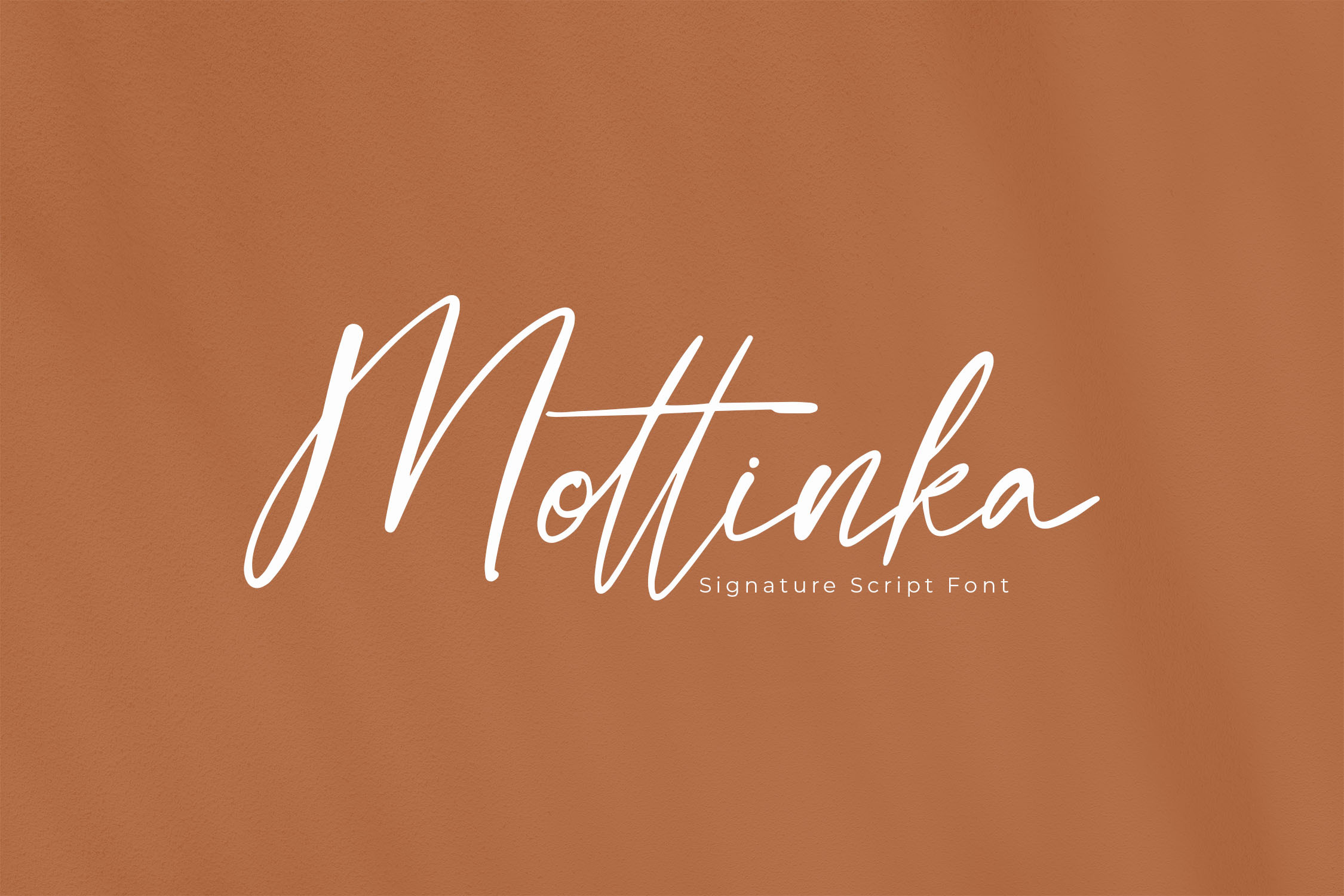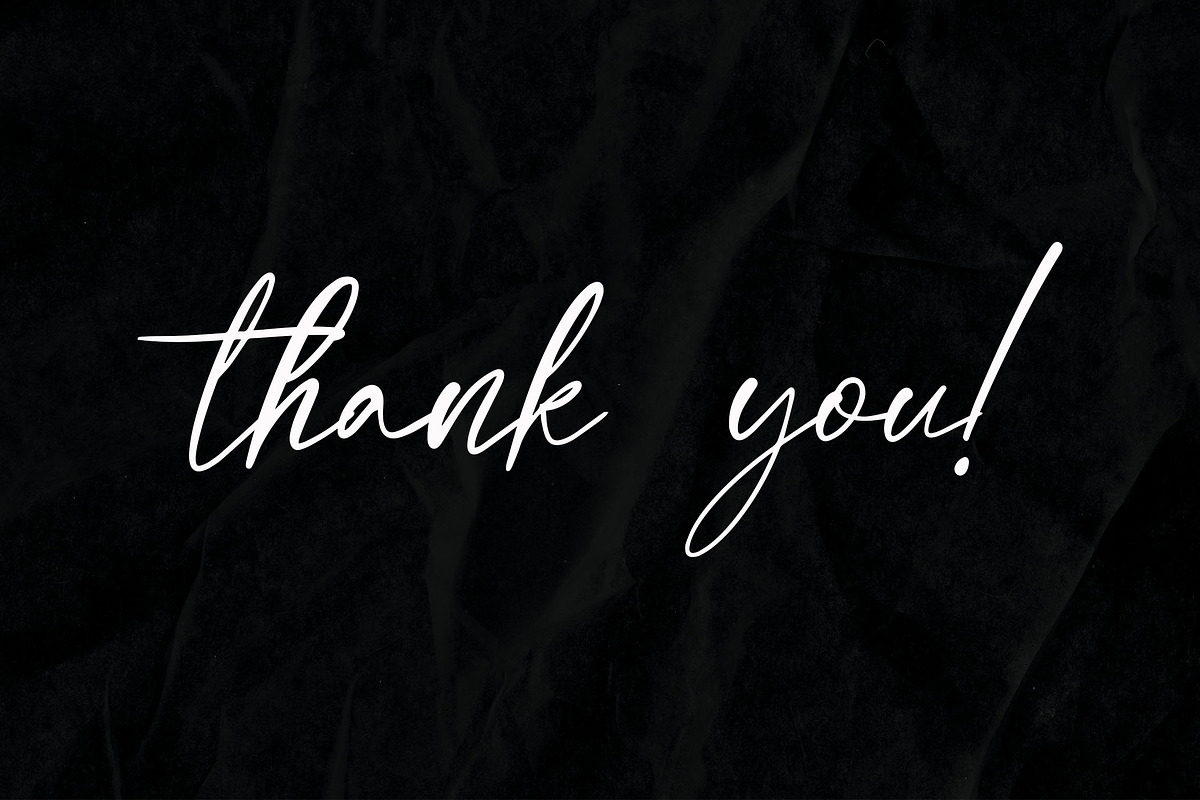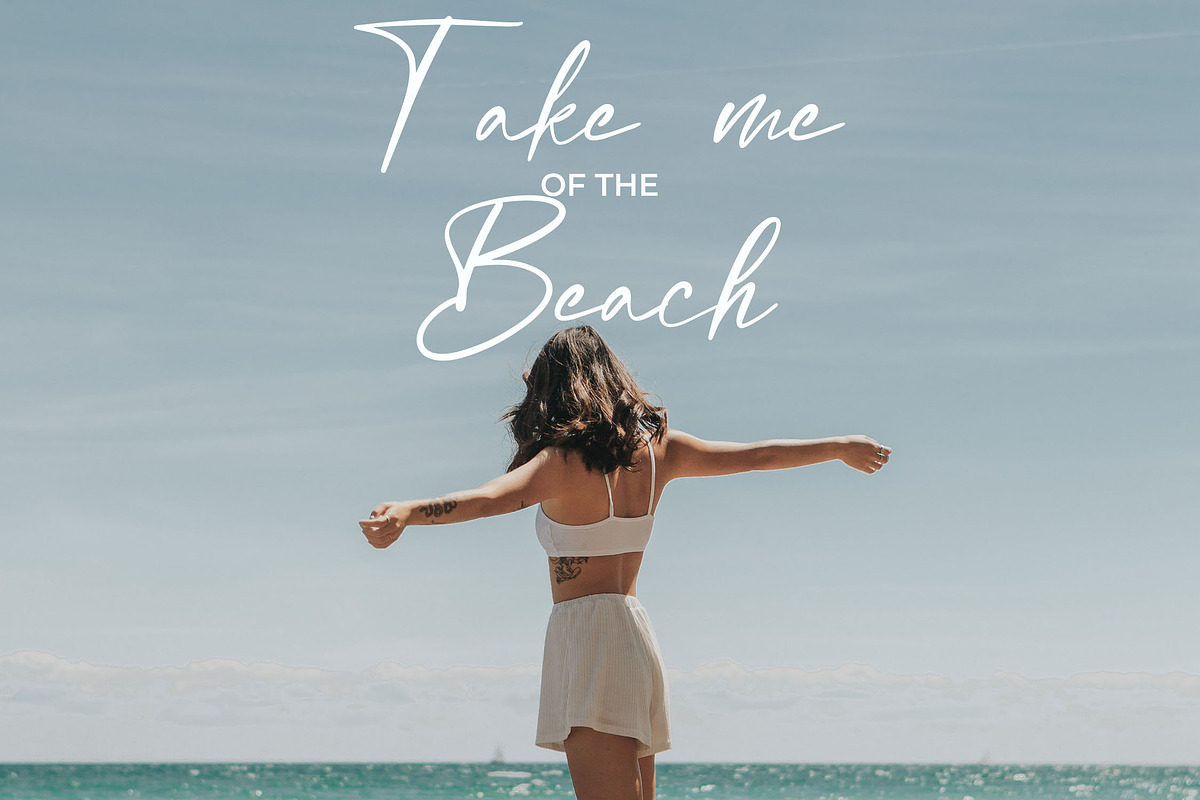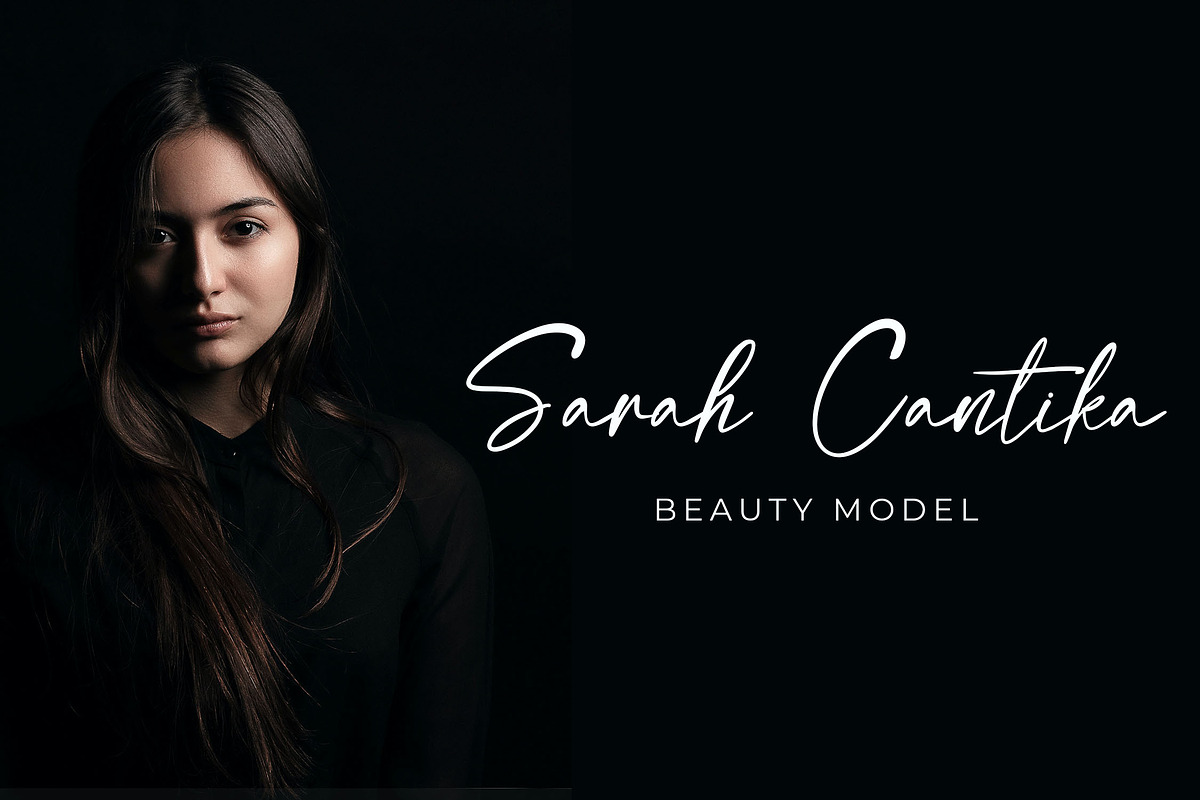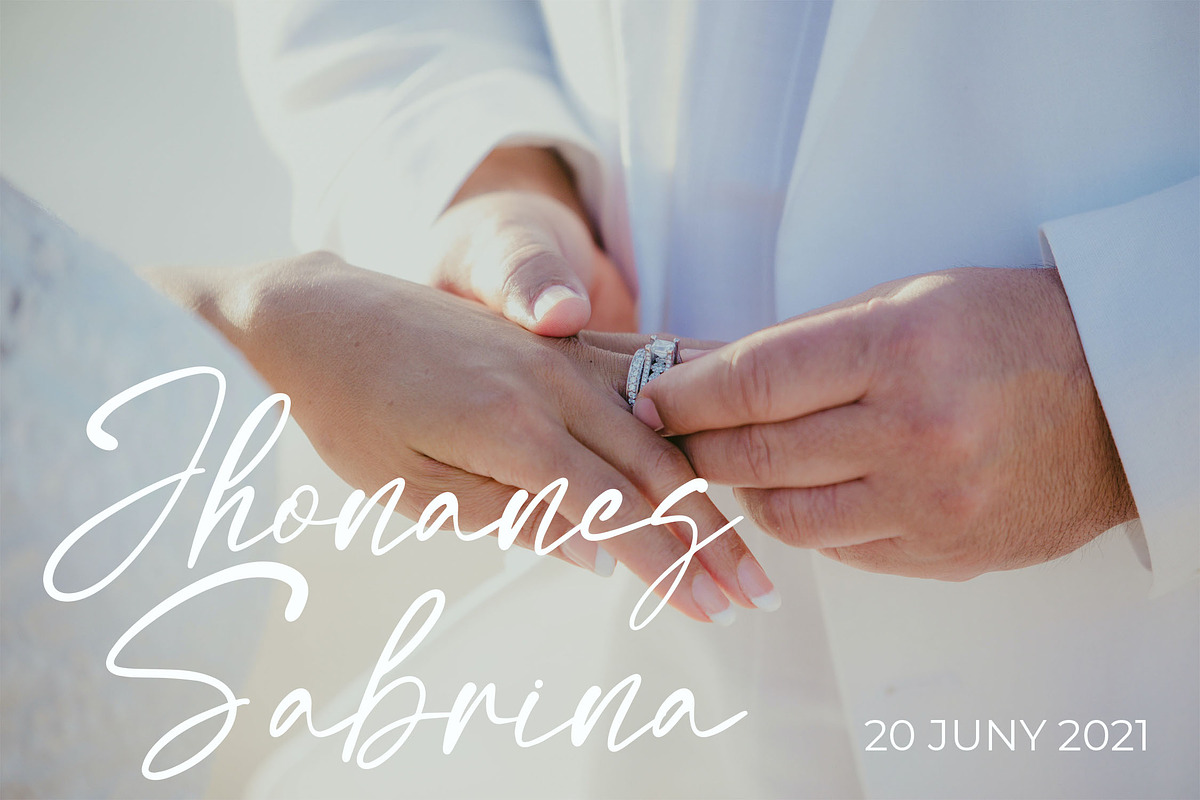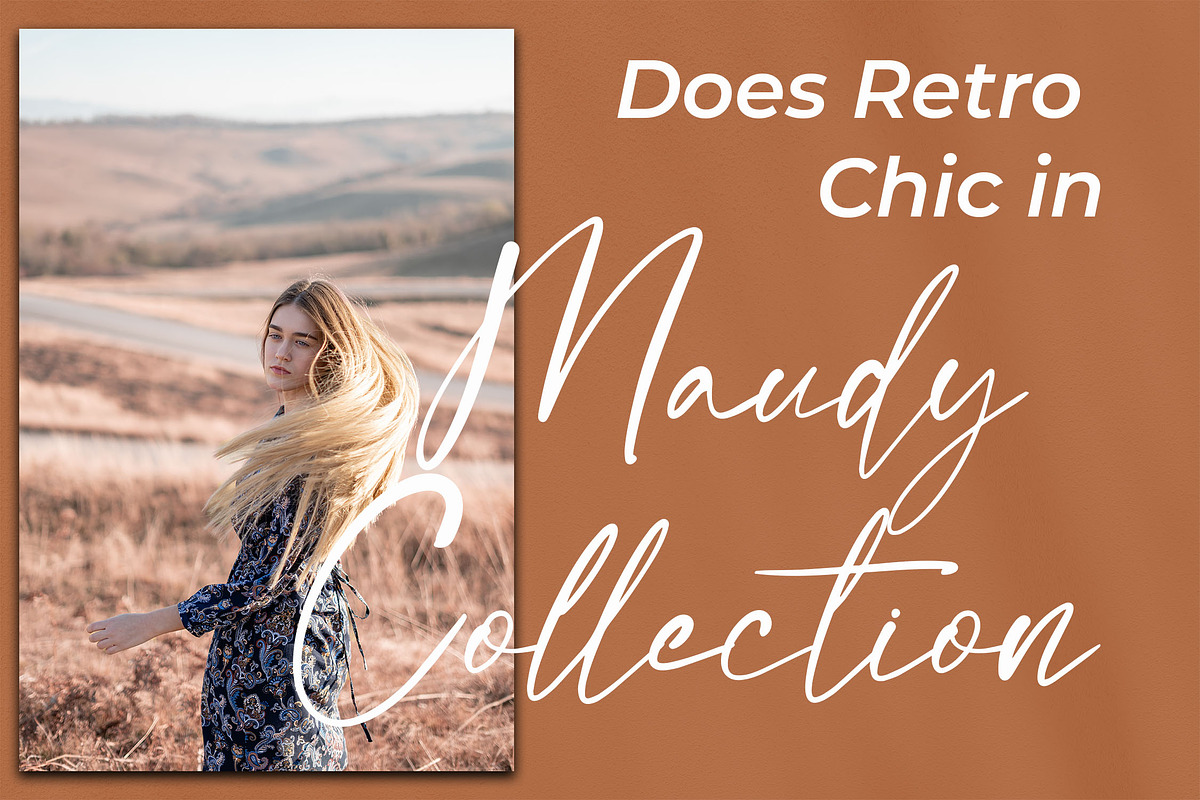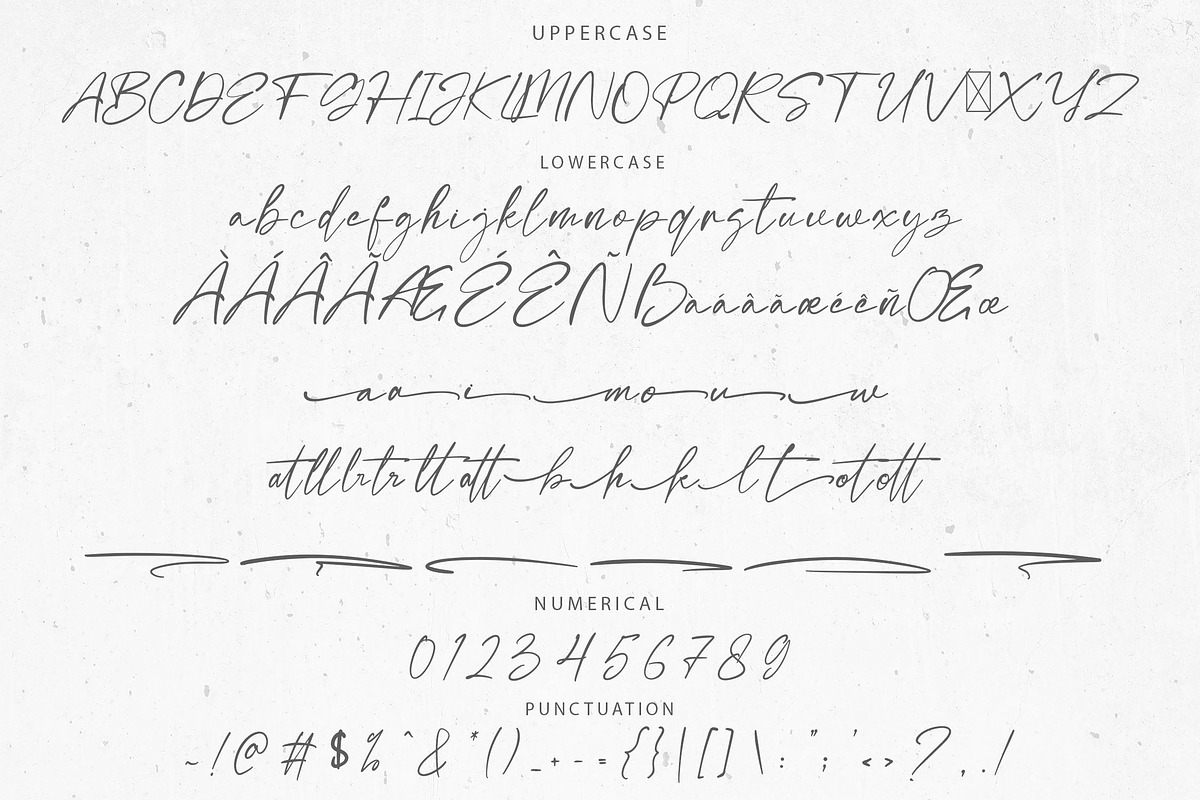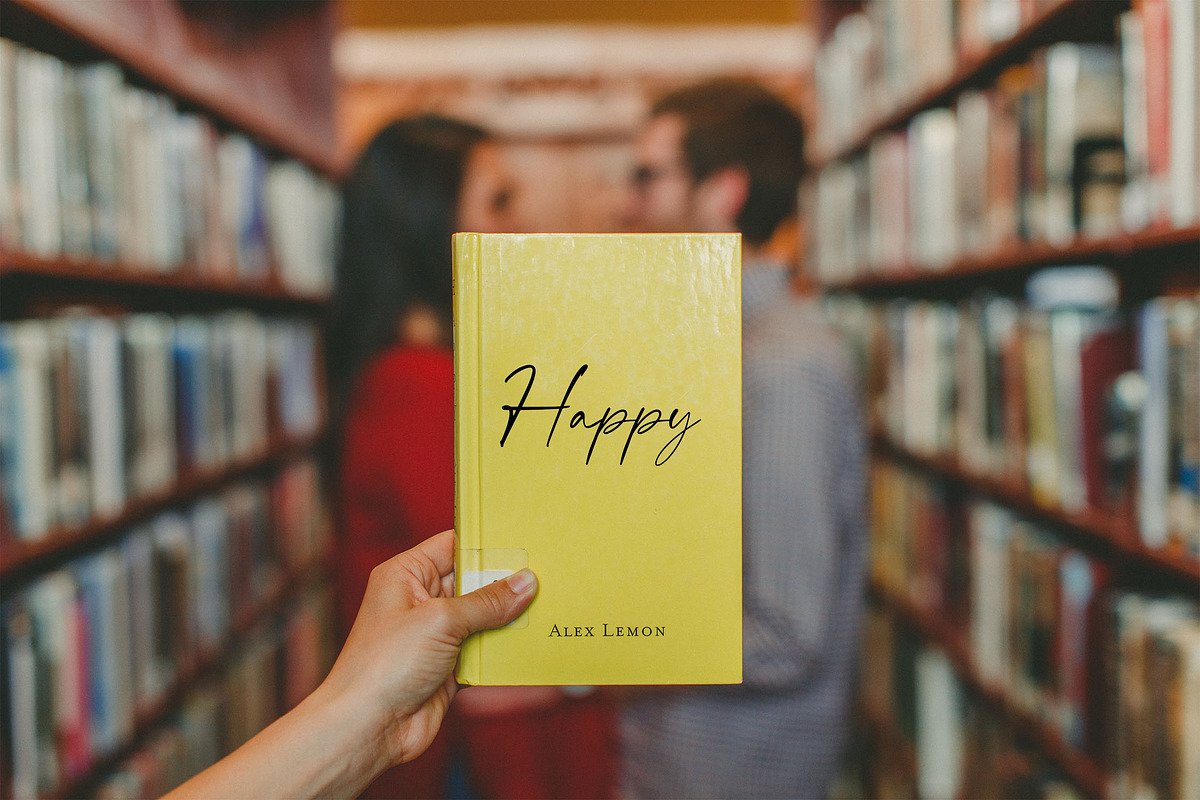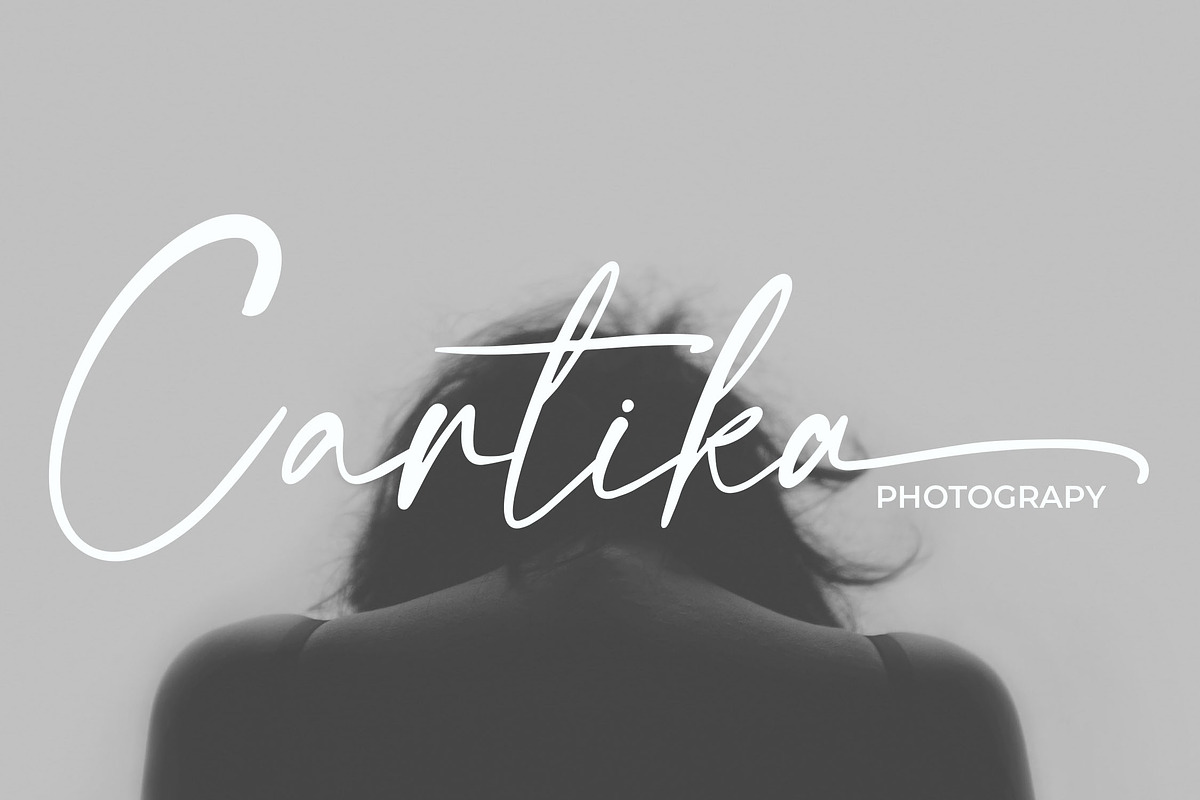
Mottinka Signature Script Font
Mottinka is a sophisticated script font with a signature-inspired design, perfect for adding an elegant and personal touch to your projects. Its unique character shapes make it stand out, enhancing the visual appeal of any design, from branding to invitations. This font is versatile and stylish, offering regular updates for improved functionality.
- Ligatures for smooth letter connections
- Stylistic alternates and swashes for creative flair
- Multilingual support for global usage